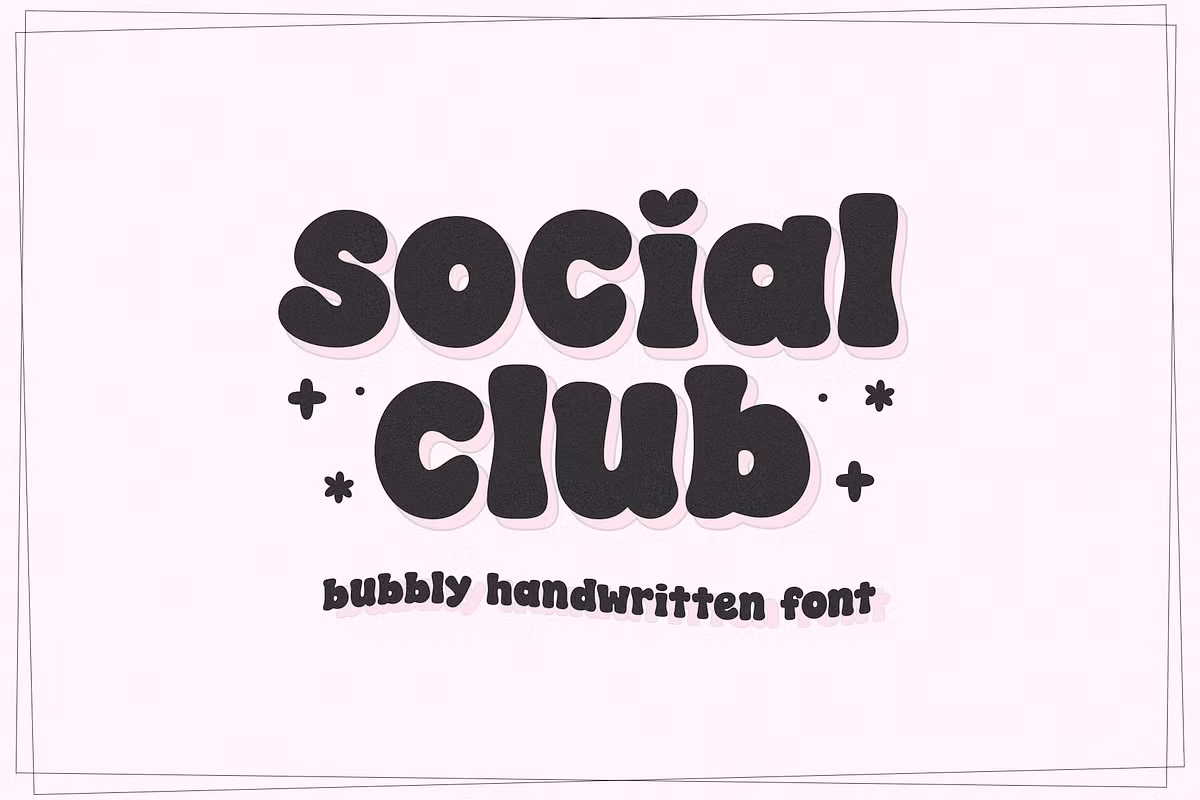
Social Club | Cute Bubbly Font Free Download
Social Club | Cute Bubbly Font Free Download is a playful and charming typeface that features rounded, bubbly letterforms. This font is perfect for creating fun, energetic designs, ideal for children’s projects, social media posts, event invitations, greeting cards, and more.
With its friendly and approachable vibe, Social Club adds a touch of whimsy and lightheartedness to any project, making it perfect for casual branding, product packaging, and creative graphics.
Bring a fun and joyful touch to your designs with Social Club | Cute Bubbly Font Free Download, and create playful, memorable typography that stands out with personality and style. Perfect for designers seeking a cute, friendly font.